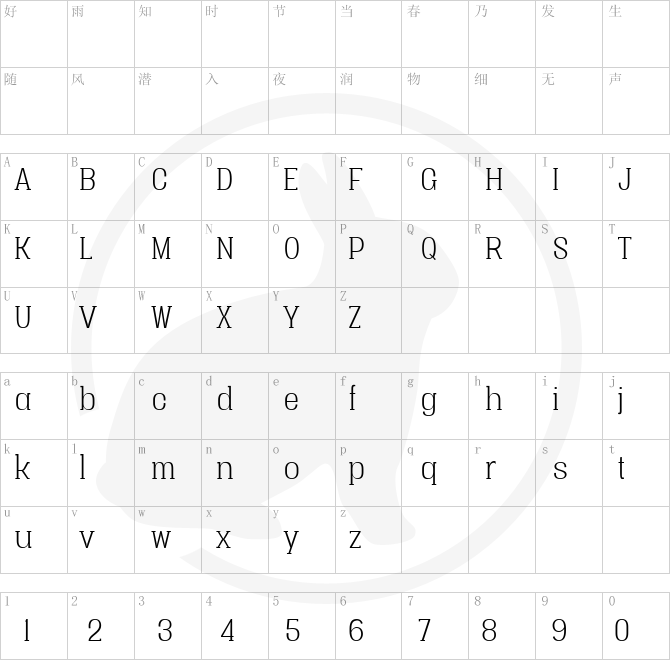
Vacer-Serif-Personal-Light.ttf is a very beautiful artistic font, Vacer-Serif-Personal-Light.ttf is widely used in the design and printing of various books and pictures,Vacer-Serif-Personal-Light.ttf has a strong visual impact,Vacer-Serif-Personal-Light.ttf is a commonly used font in newspapers, magazines and books, and is used in posters, e-commerce Poster design, store design, logo design, font design and other fields.Vacer-Serif-Personal-Light.